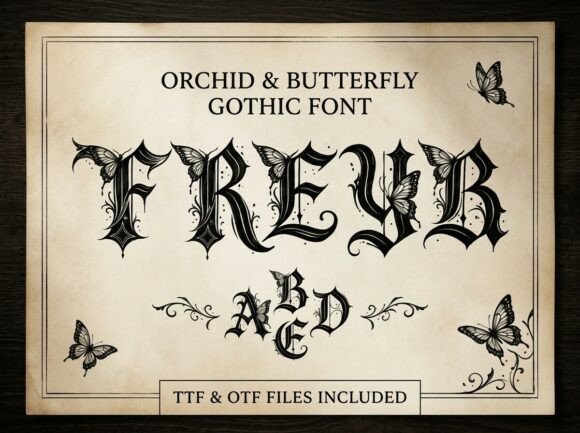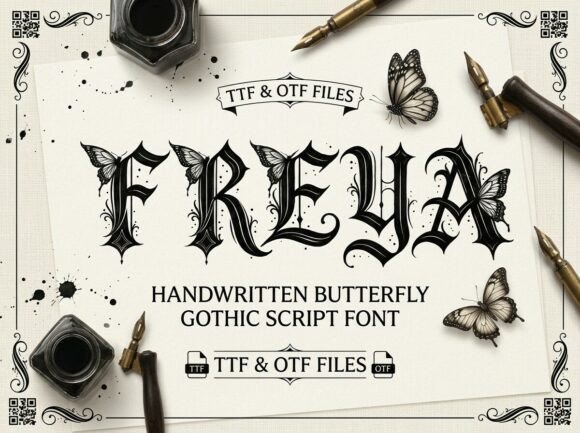
Discover the Enchanting World of Freya Font
As designers, we’ve all been there – stuck in a creative rut, searching for the perfect font to bring our project to life. I recall working on a Gothic-inspired craft project, pouring over font catalogs, and feeling frustrated with the usual bland options. That’s when I stumbled upon Freya, a stunning Gothic Butterfly Blackletter font that instantly captivated me. In this article, we’ll dive into the world of Freya, exploring its unique features, uses, and alternatives.
A Personal Encounter with Freya
Freya’s intricate details and dark-cottagecore soul immediately drew me in. I was working on a branding project for an artisanal apothecary, and I needed a font that would evoke a sense of mystery and enchantment. Freya’s fusion of sharp, aggressive Blackletter structures with delicate, organic butterfly wings and vine work was the perfect fit. I knew right then that I had found a gem.
An Honest Review of Freya
What I Love About Freya ✨
- 💫 Intricate, illustrative details that add depth and character to any design
- ✅ Perfect blend of dark, mysterious, and elegant elements
- 🎨 Highly versatile, suitable for various design projects, from book mastheads to social media headers
- 🔍 Extensive OpenType features, glyphs, and stylistic alternates for creative experimentation
- ⚠️ May require some time to get accustomed to the unique letterforms and decorative elements
- 🤔 Limited use in very small font sizes, as details may become lost
The Backstory of Freya
Freya’s design inspiration is rooted in the mystical and the mysterious. Imagine a world where ancient forests meet dark, Victorian-era aesthetics. The font’s creator sought to capture the essence of this enchanted realm, combining the sharp, aggressive structures of traditional Blackletter with the delicate, organic elegance of butterfly wings and vine work.
Q: What is the primary use of Freya font?
A: Freya is designed for display purposes, making it perfect for headlines, titles, and short text passages. It’s ideal for projects that require a touch of mystery, elegance, and sophistication.
Q: Is Freya suitable for body text?
A: While Freya is a beautiful font, it’s not ideal for body text due to its intricate details and decorative elements. It’s best used for display purposes, such as headlines, titles, or short text passages.